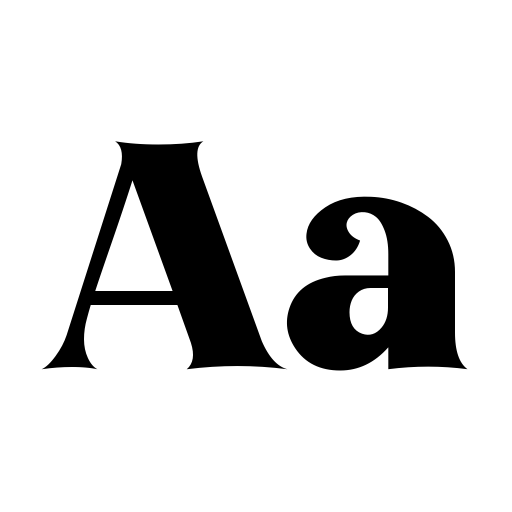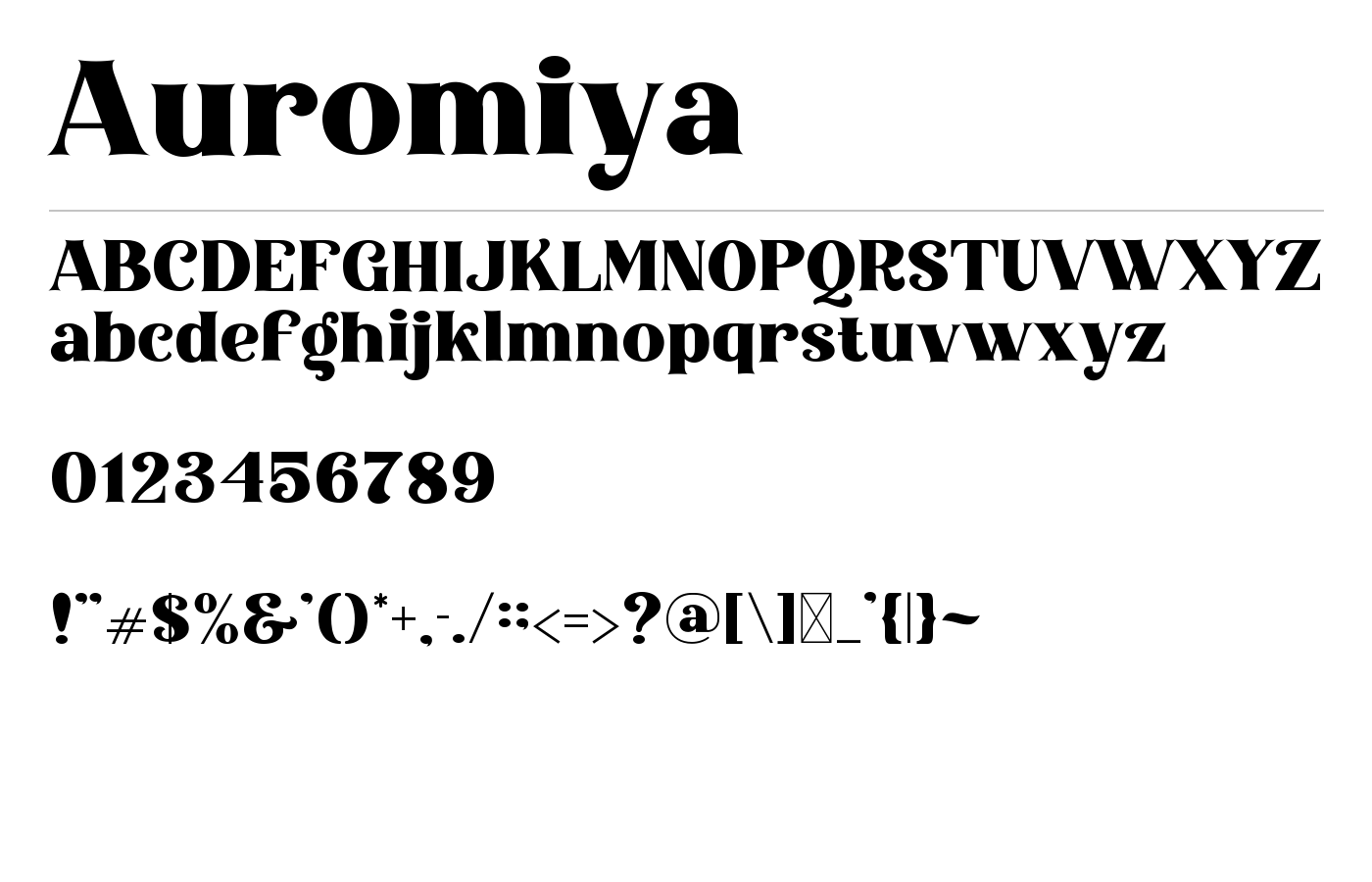
Auromiya is a bold slab serif font with strong contrast between thick and thin strokes, giving it a dramatic and confident presence. Its unique letterforms, like the curled tails on the Q and R and the distinct ampersand, add a touch of playfulness while maintaining a classic and elegant feel. This font is ideal for headlines, logos, and branding that seeks to combine vintage charm with modern strength and style.
Auromiya Font
About Auromiya Font